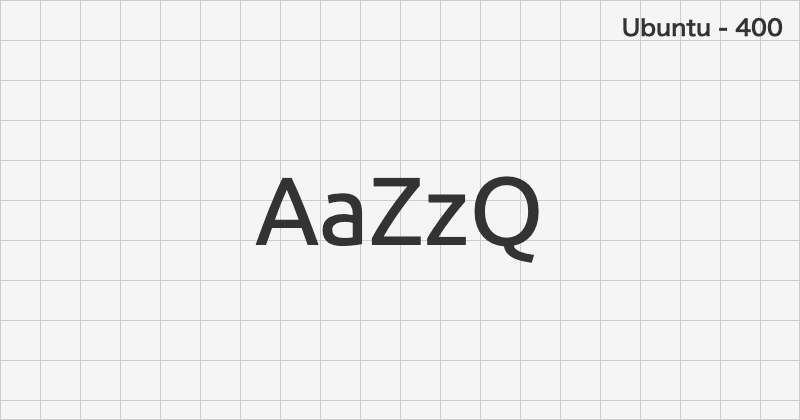
The Ubuntu Font Family consists of matching libre/open fonts designed for clarity and legibility. Its modern design is tailored for digital use, reflecting the values of the Ubuntu project.
Supports Latin, Latin Extended, Cyrillic, Cyrillic Extended, Greek and Greek Extended, making it useful for designs and text that handle multiple languages.
Available in Light, Regular and Bold weights, including Italic styles, Covering everything from footnotes to body text, headings, and quotations.
The Ubuntu Font Family was developed by Dalton Maag, funded by Canonical Ltd, to support the Free Software community. The design emphasizes accessibility and modern aesthetics.